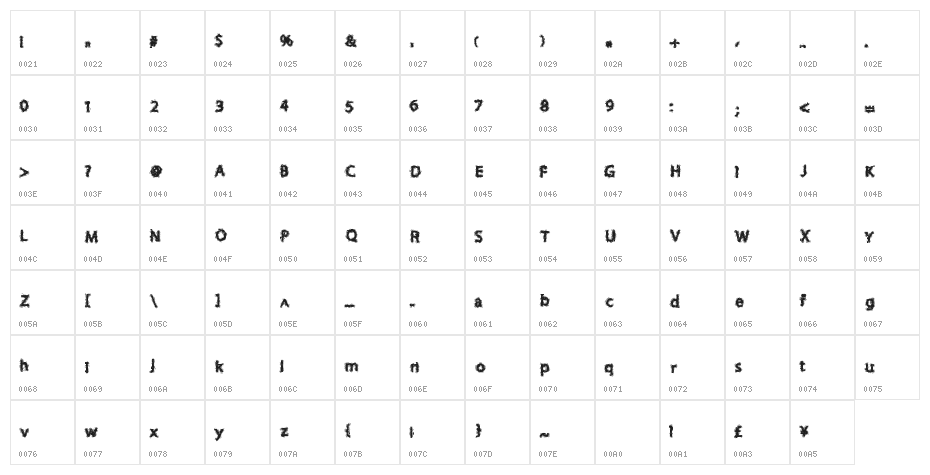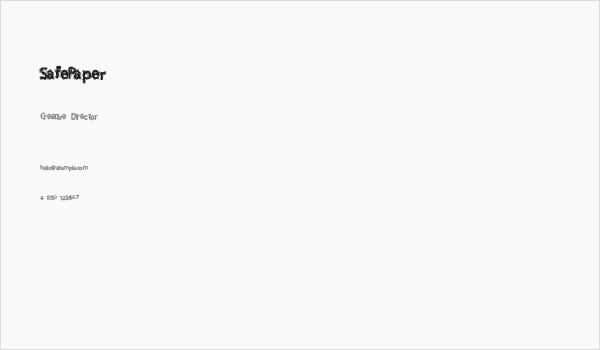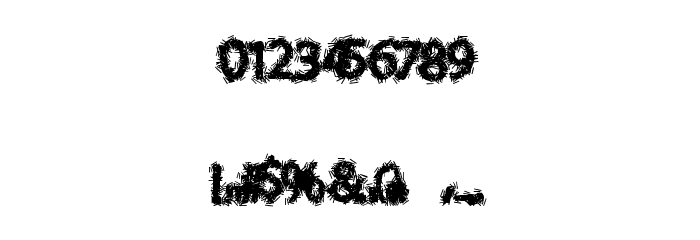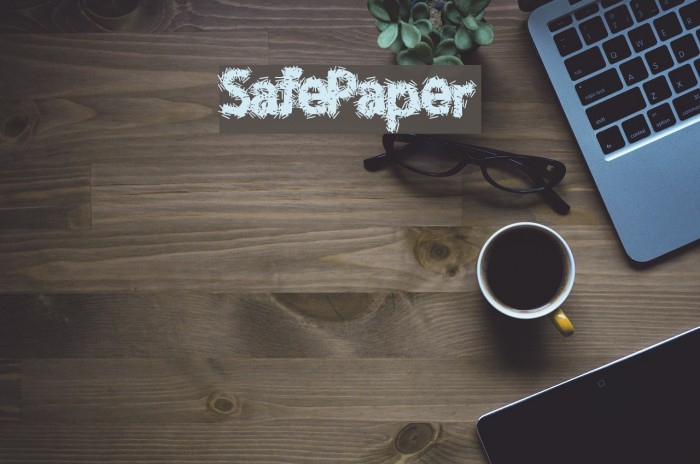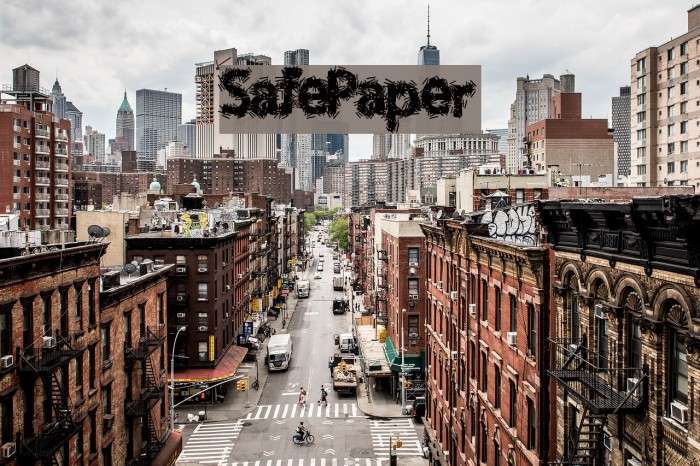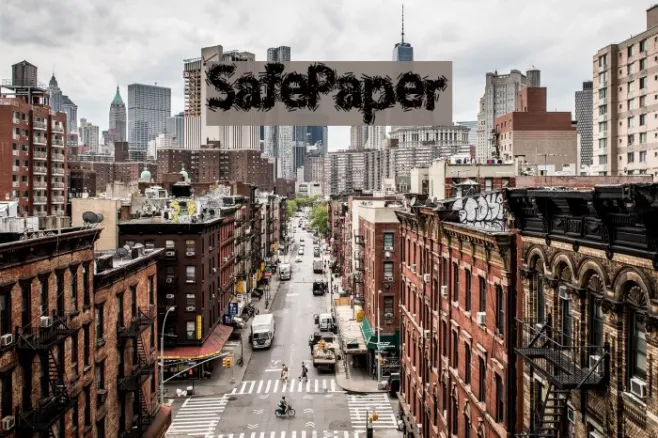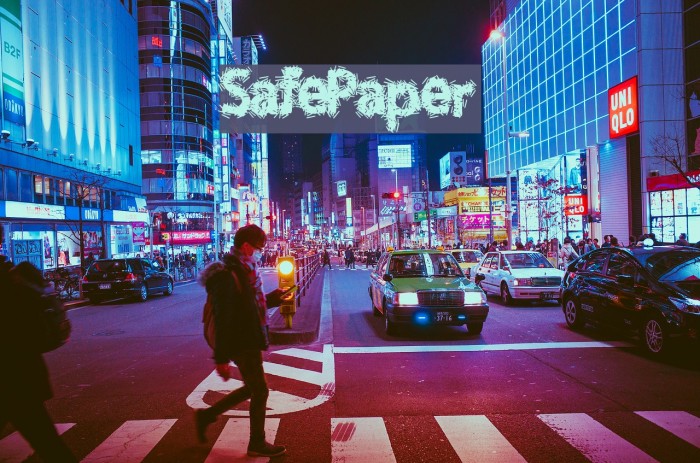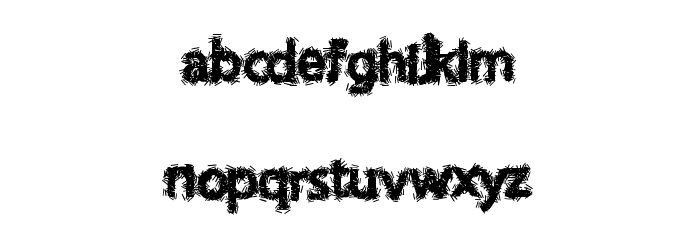
SafePaper Font
SafePaper Description
This font features a unique, textured style that gives the appearance of being hand-drawn with a rough, sketch-like quality. The characters are bold and heavily stylized, with irregular edges that create a sense of movement and energy. This font is highly decorative, making it ideal for projects that require a distinctive and artistic touch. The uppercase and lowercase letters maintain a consistent design, while the numbers and special characters complement the overall aesthetic. The font's playful and dynamic nature makes it suitable for creative and informal applications.
| Proposed Projects | Ideal for posters, album covers, artistic branding, and creative digital content. |